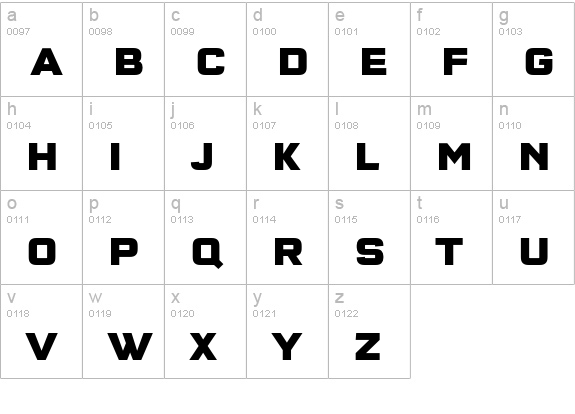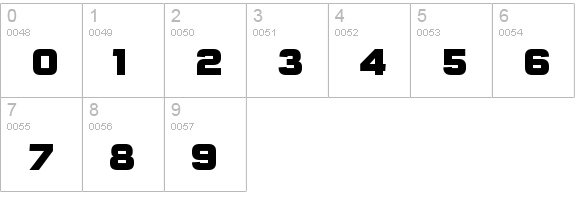
QTypeSquare-BlackMajuscles is a bold and powerful display font that demands attention and makes a statement. With its squared letterforms and strong strokes, this font exudes confidence and strength. It is perfect for headlines, titles, posters, and any design project that requires a bold and impactful typography. What makes QTypeSquare-BlackMajuscles even more appealing is that it is available for free! Yes, you read that right, this amazing font can be downloaded for free at FontsMarket.com. With just a few clicks, you can enhance your designs with this striking typeface without spending a dime. Whether you are a professional designer looking for a versatile font to add to your collection or a beginner wanting to experiment with typography, QTypeSquare-BlackMajuscles is the perfect choice. Its bold and commanding presence will instantly elevate your designs and grab the attention of your audience. The squared letterforms of QTypeSquare-BlackMajuscles give it a unique and modern aesthetic. Its clean and sharp lines make it legible even at smaller sizes, ensuring that your message is communicated effectively. This font also includes a full set of uppercase and lowercase letters, numbers, punctuation marks, and special characters, providing you with all the tools you need to create visually stunning designs. Don't miss out on the opportunity to download QTypeSquare-BlackMajuscles for free at FontsMarket.com. Whether you are designing a poster, logo, or website, this font will give your project a bold and impactful edge. So go ahead, unleash your creativity and let QTypeSquare-BlackMajuscles elevate your designs to new heights.